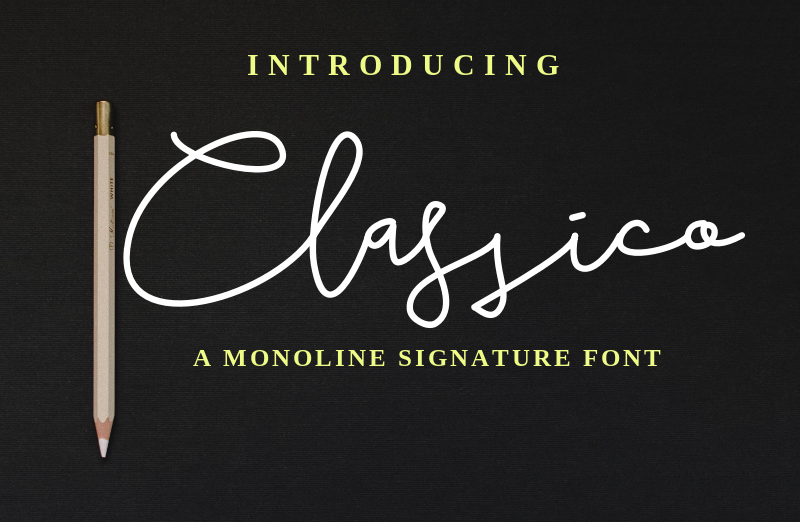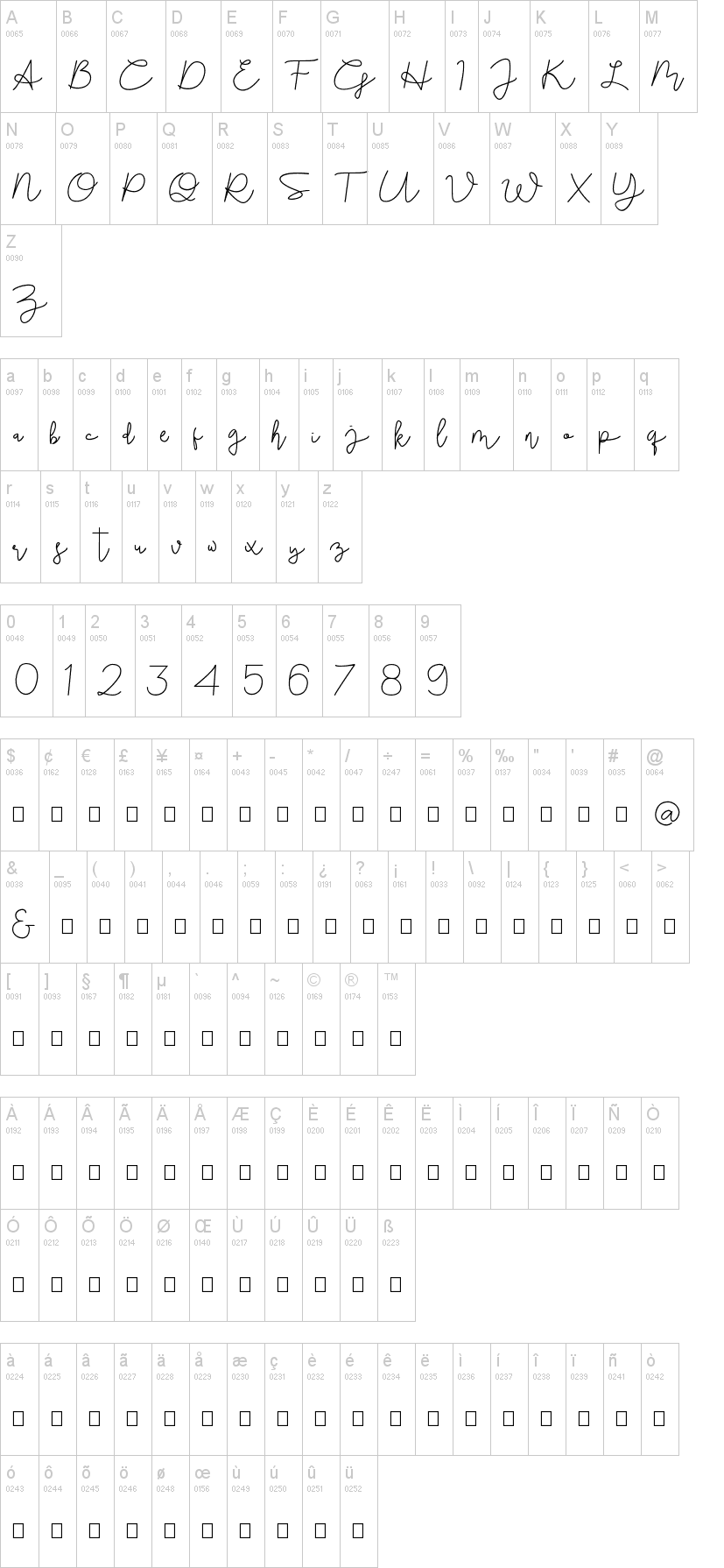
Classico monoline signature font
It is a great font any design such as logo, invitation etc. already completed with international language, and some ligature to make your design better.